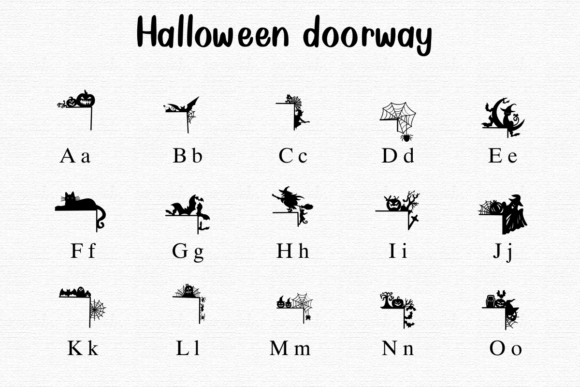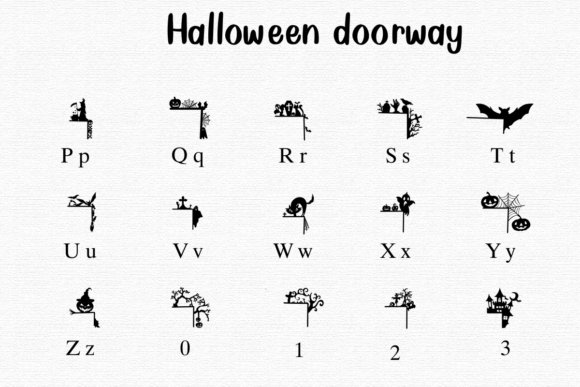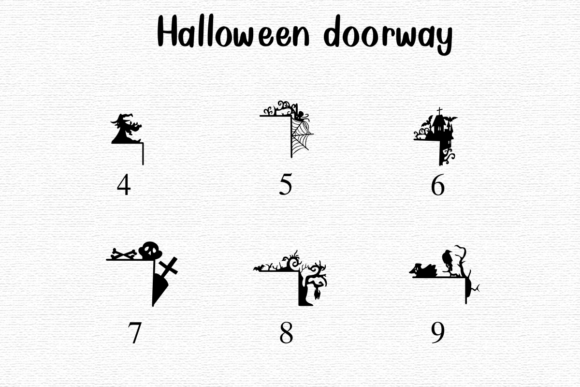
Introduction to Halloween Doorway Font
Halloween Doorway is a dingbats font with a spooky theme.
This font can enhance your creative projects such as wedding invitations, DIY, crafts, decorations, logos, and many other creative ideas .
Halloween Doorway Font offers exceptional quality and versatility, making it a valuable addition to your design toolkit. Whether you’re creating for personal projects or commercial use, Halloween Doorway Font delivers professional results.